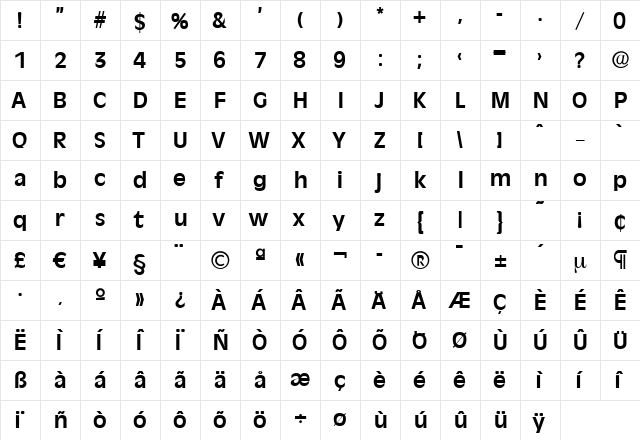
ArthurBecker Bold
Design Context for ArthurBecker Typeface
ArthurBecker is a composed and adaptable typeface that performs quietly and consistently across a wide range of design contexts. The heavy weight commands attention and anchors typographic hierarchies.